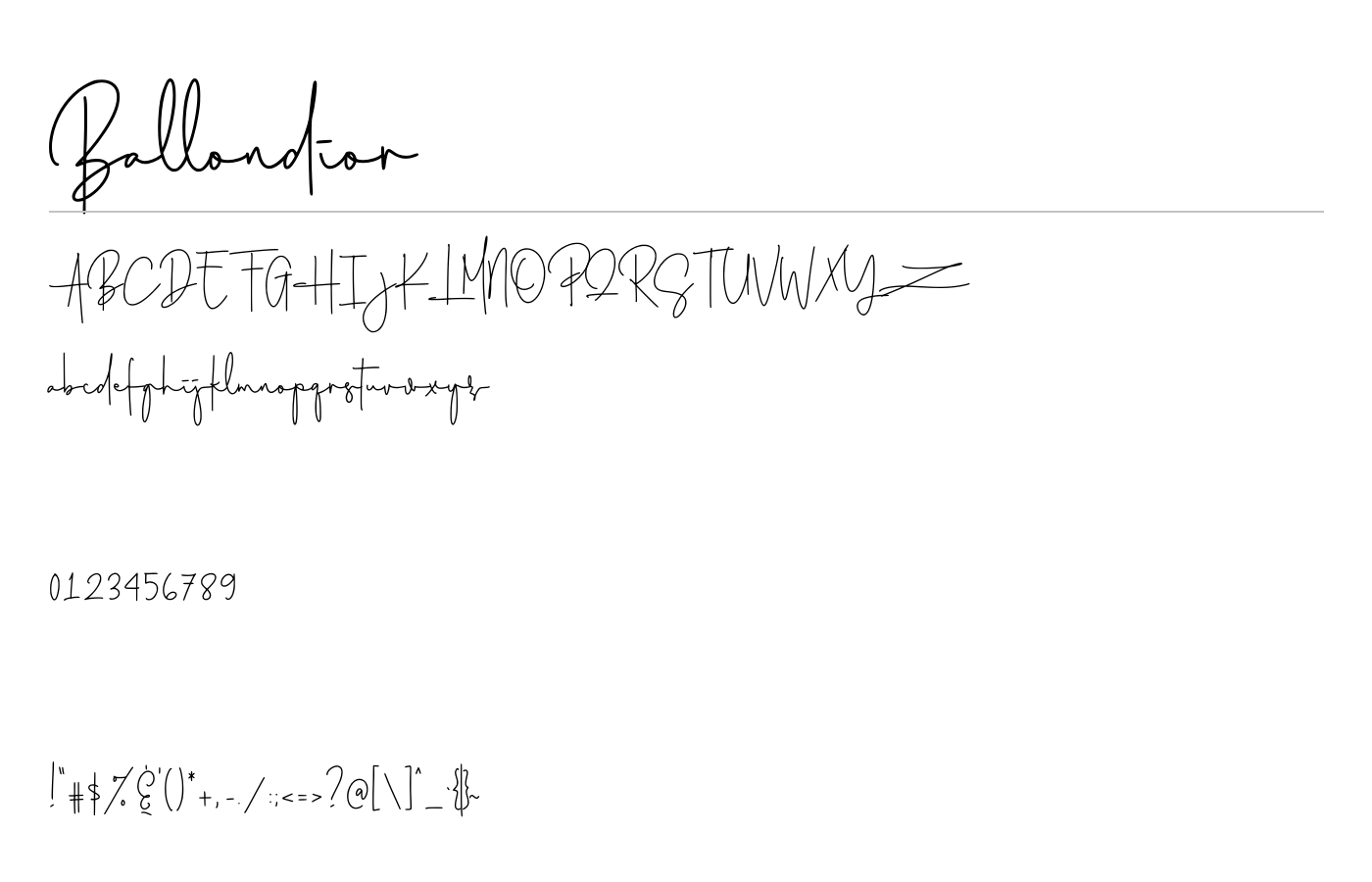
Ballondior is a delicate, handwritten script font that features thin, airy strokes and tall, narrow letterforms. Its elegant yet casual style gives it a personal, artistic feel, making it perfect for creative branding, invitations, and stylish editorial designs where a refined, contemporary touch is desired. This font works best in display sizes where its unique, fluid character details can shine.
Ballondior Font
About Ballondior Font
| Font family | Ballondior Font |